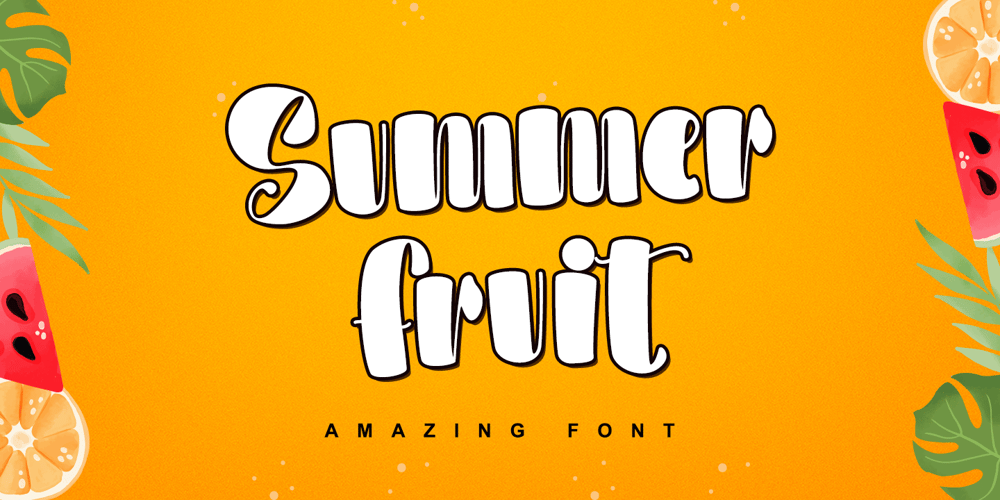
Summer Fruit
Summer Fruit font
Summer Fruit Font Family was designed by Thomas Aradea and published by Letterara. Summer Fruit contains 2 styles and family package options. Summer Fruit is a fresh & modern playful font. It has a bold cute style and will add an upscale to all your designs. This Font is perfect for many different projects such as logos & branding, birthday parties, stationery, kids, posters, advertisements, product packaging, product designs, special events, and much more!